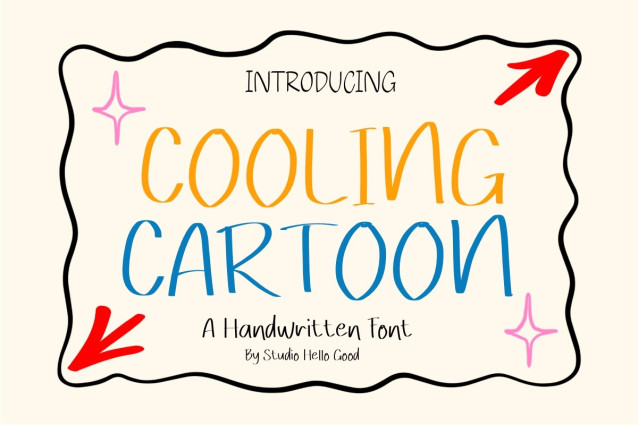
Cooling cartoon Font is a simple and friendly handwritten font. Its natural and unique style makes it incredibly fitting to a large pool of designs. The only limit is your imagination!
| Designer Name: | Studio Hello Good |